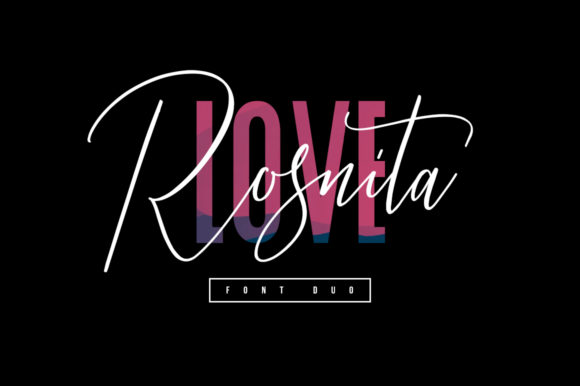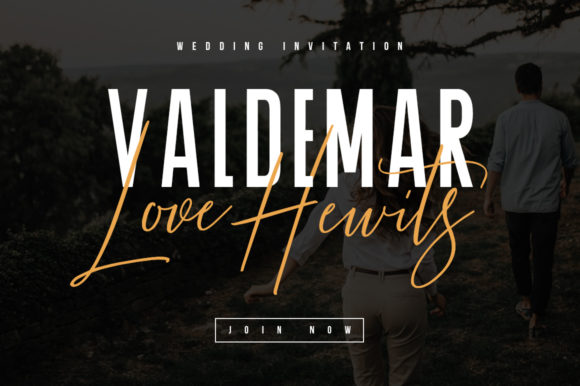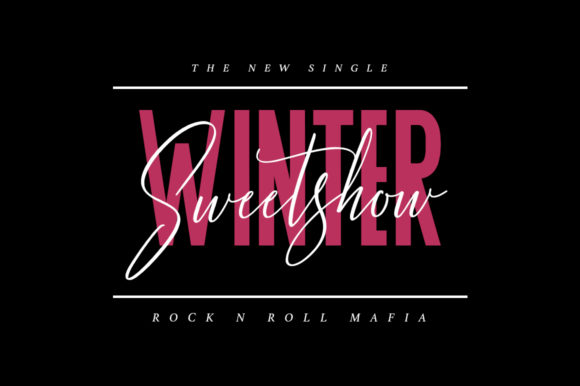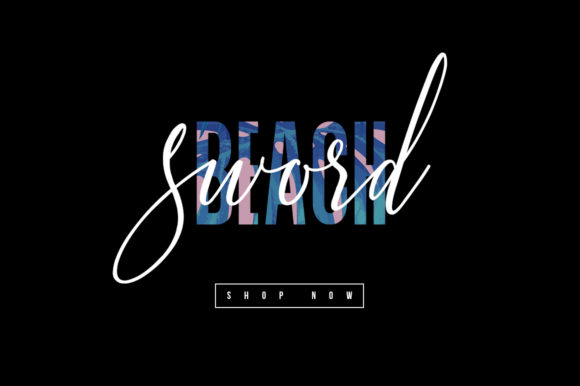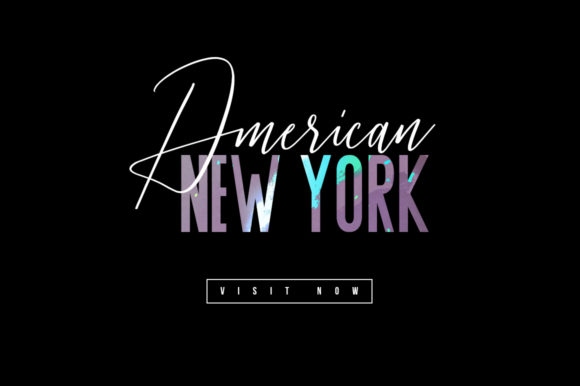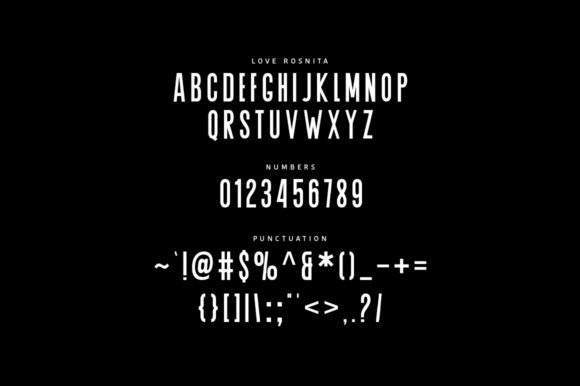
About Love Rosnita Duo Font
Love Rosnita Duo is a match made in heaven! This amazing duo font combines a cute script with a great sans serif. Use these fonts and add a versatile look to your designs!